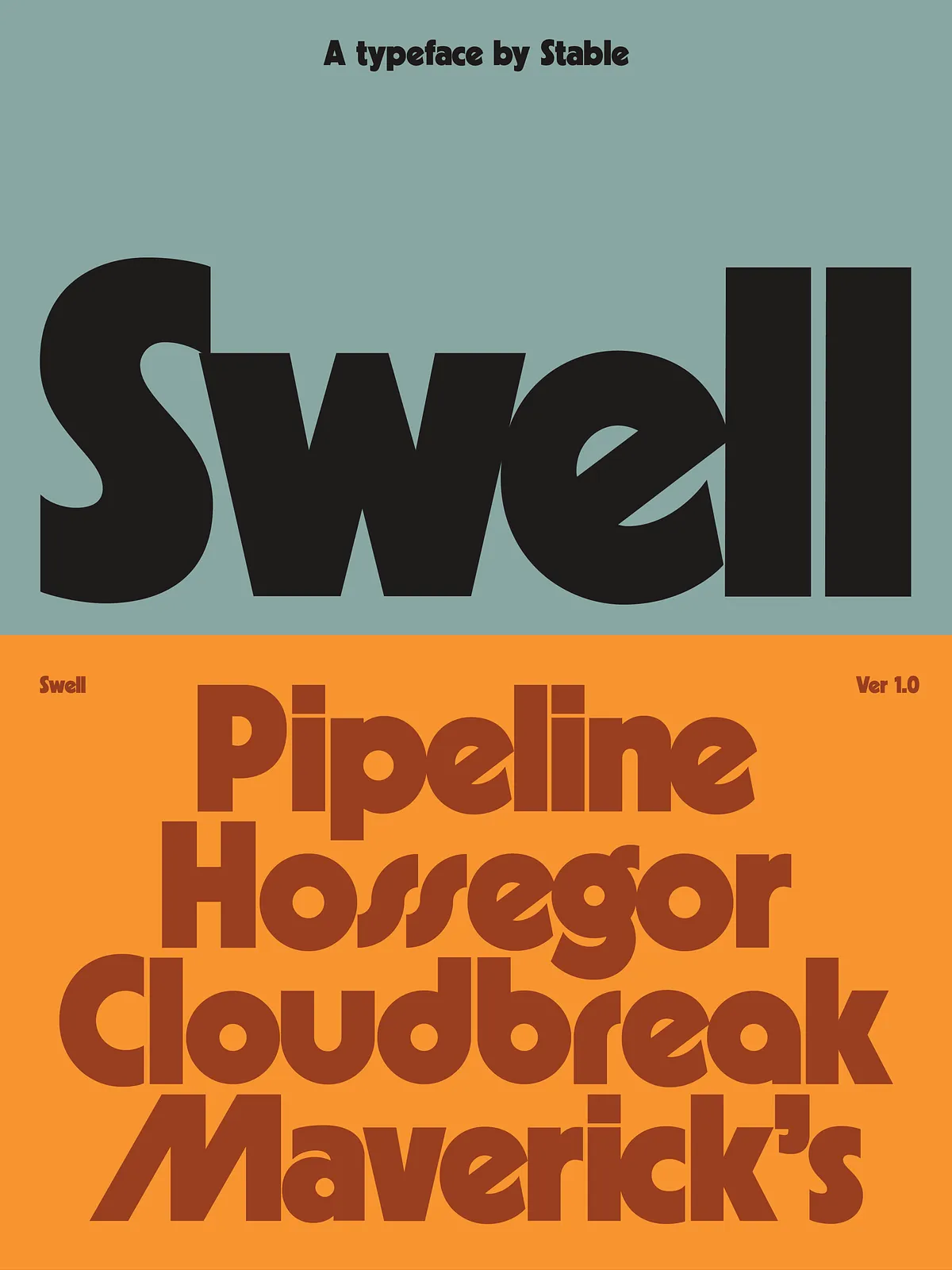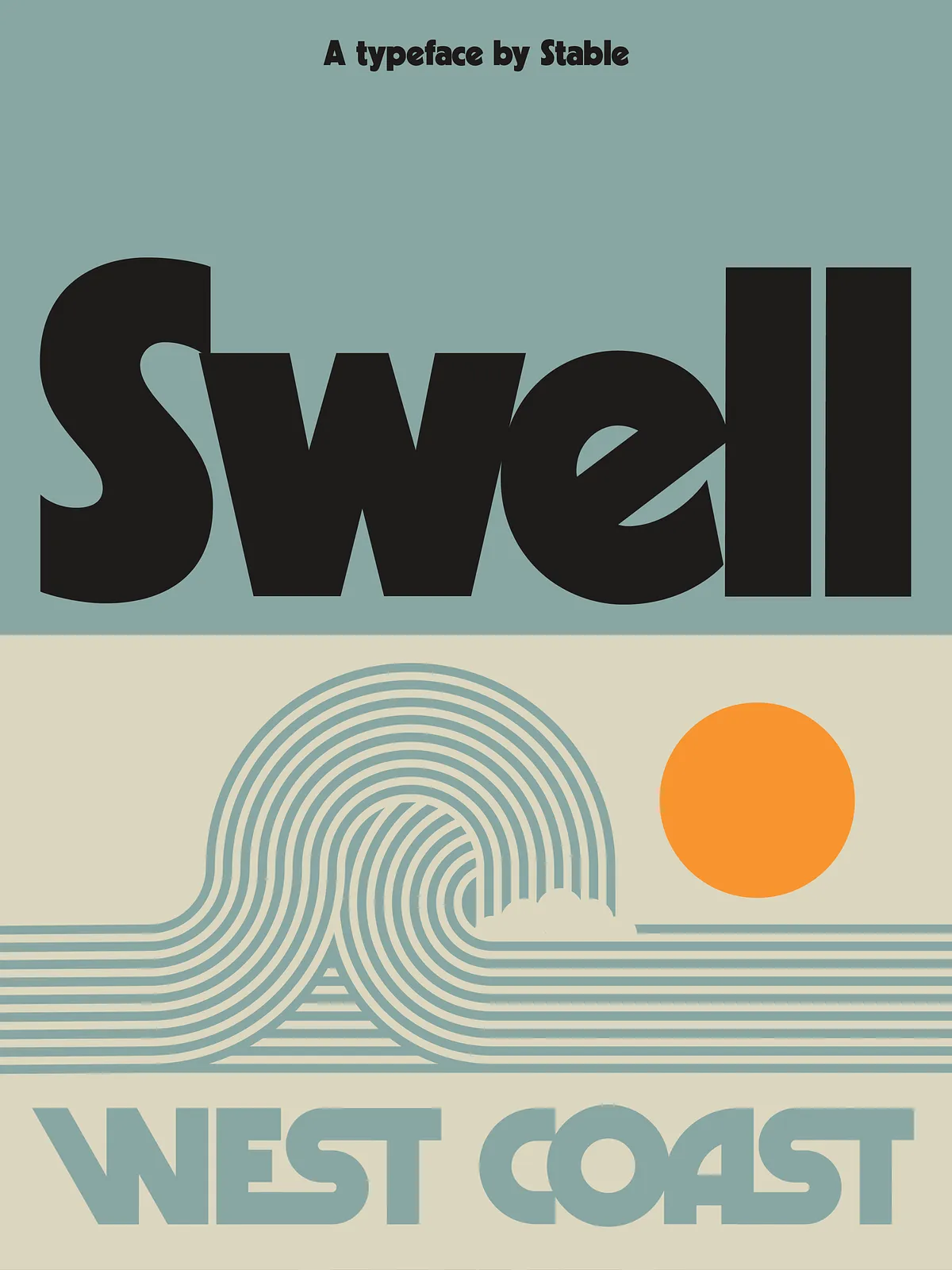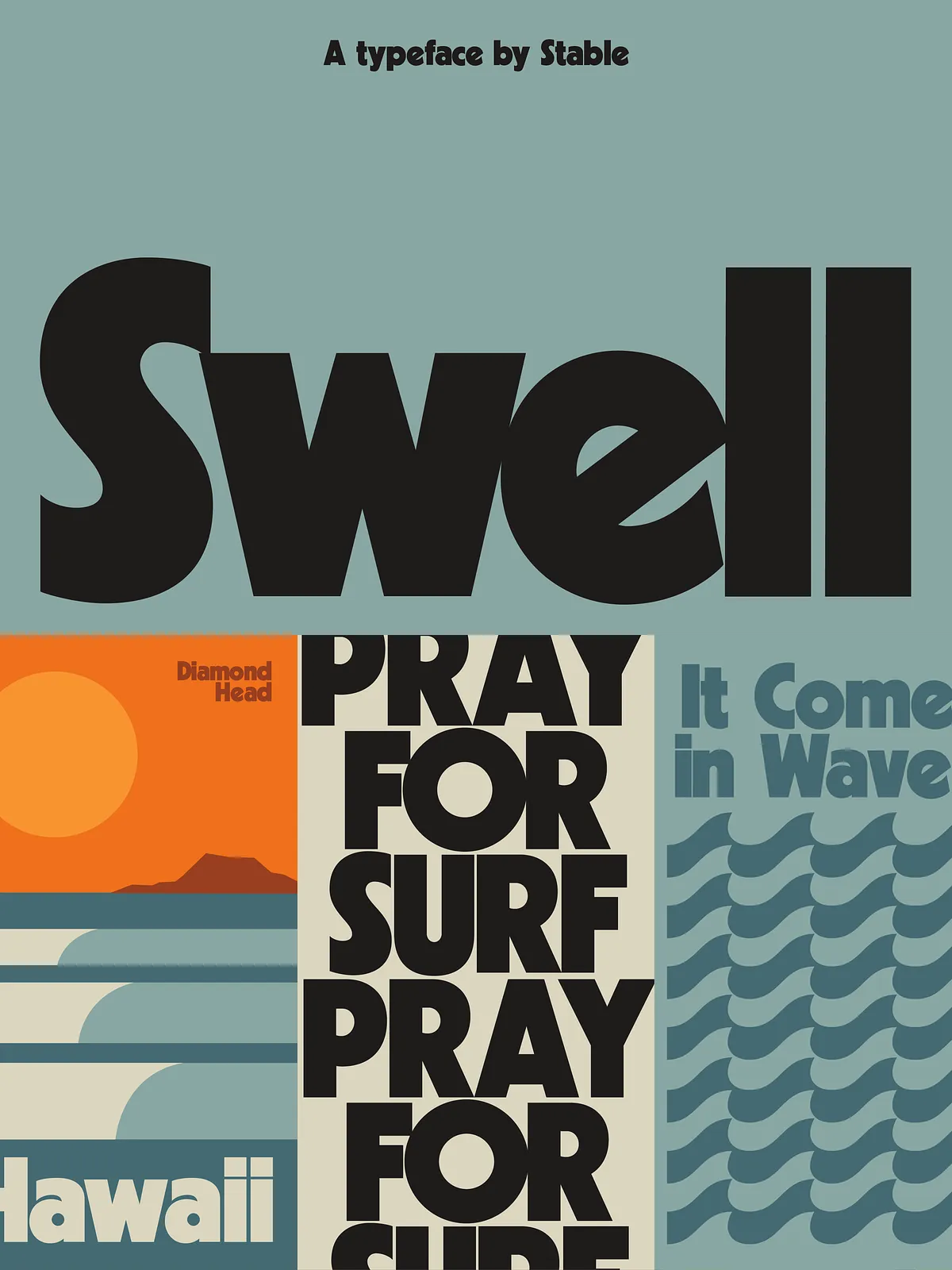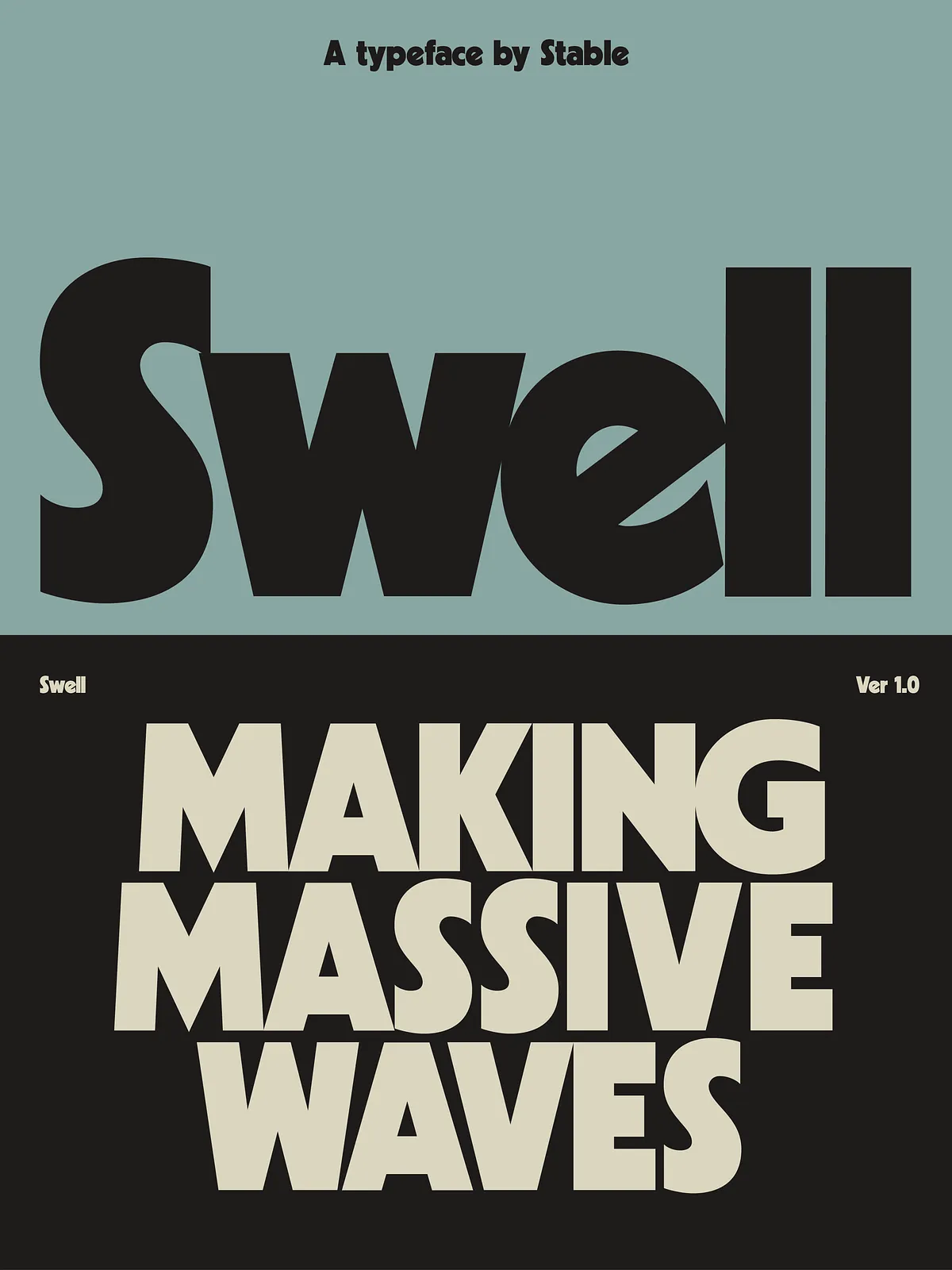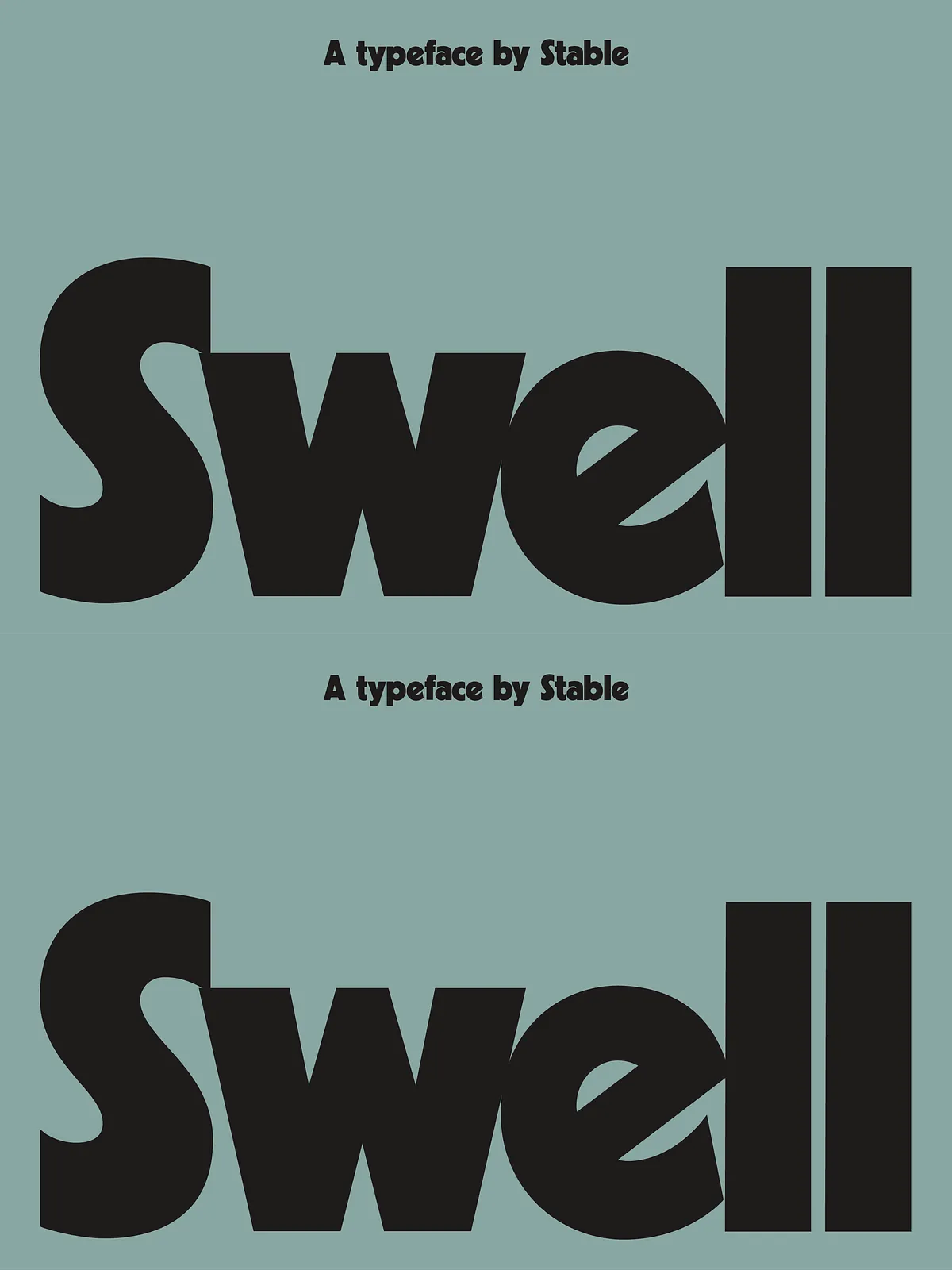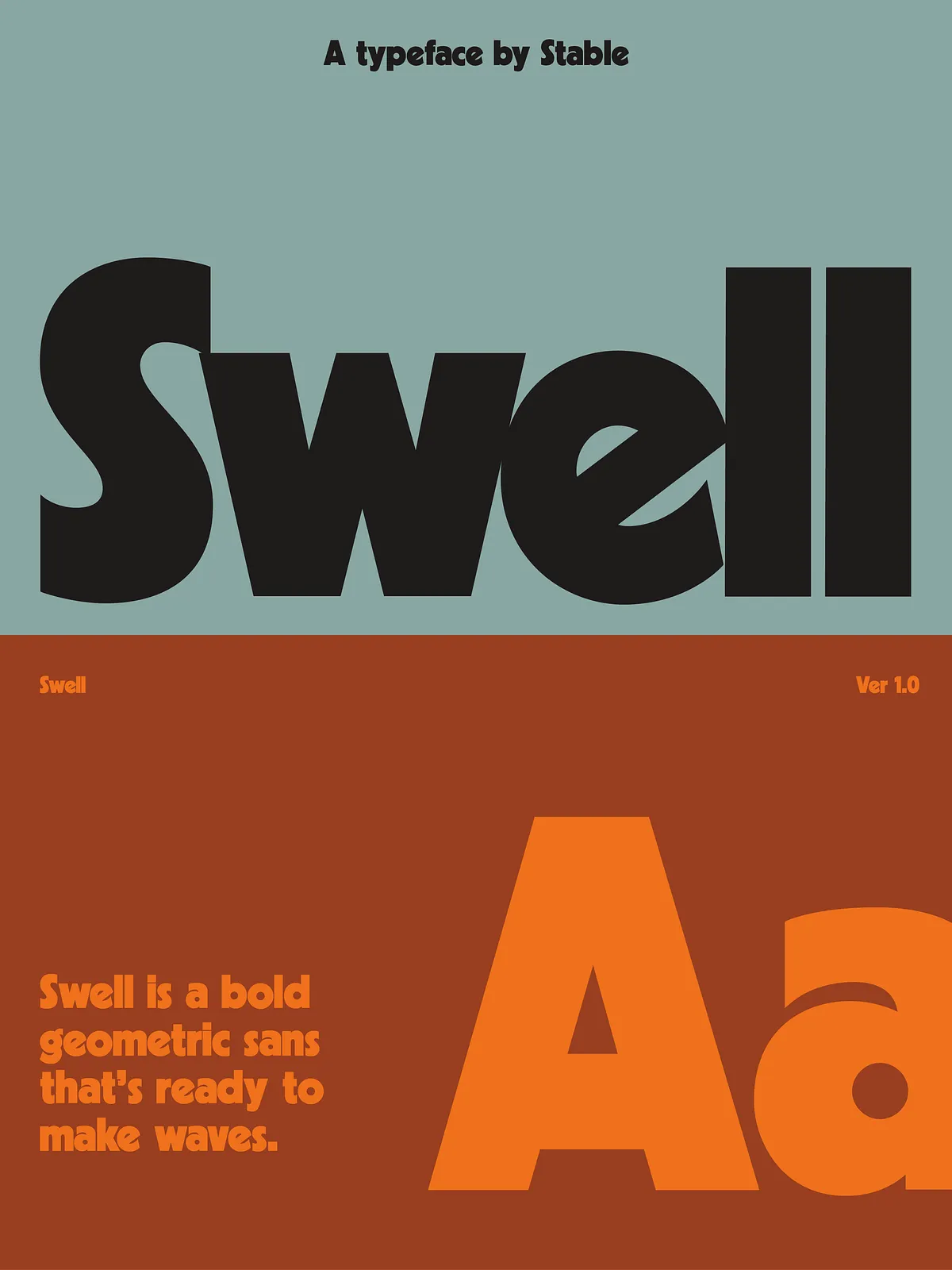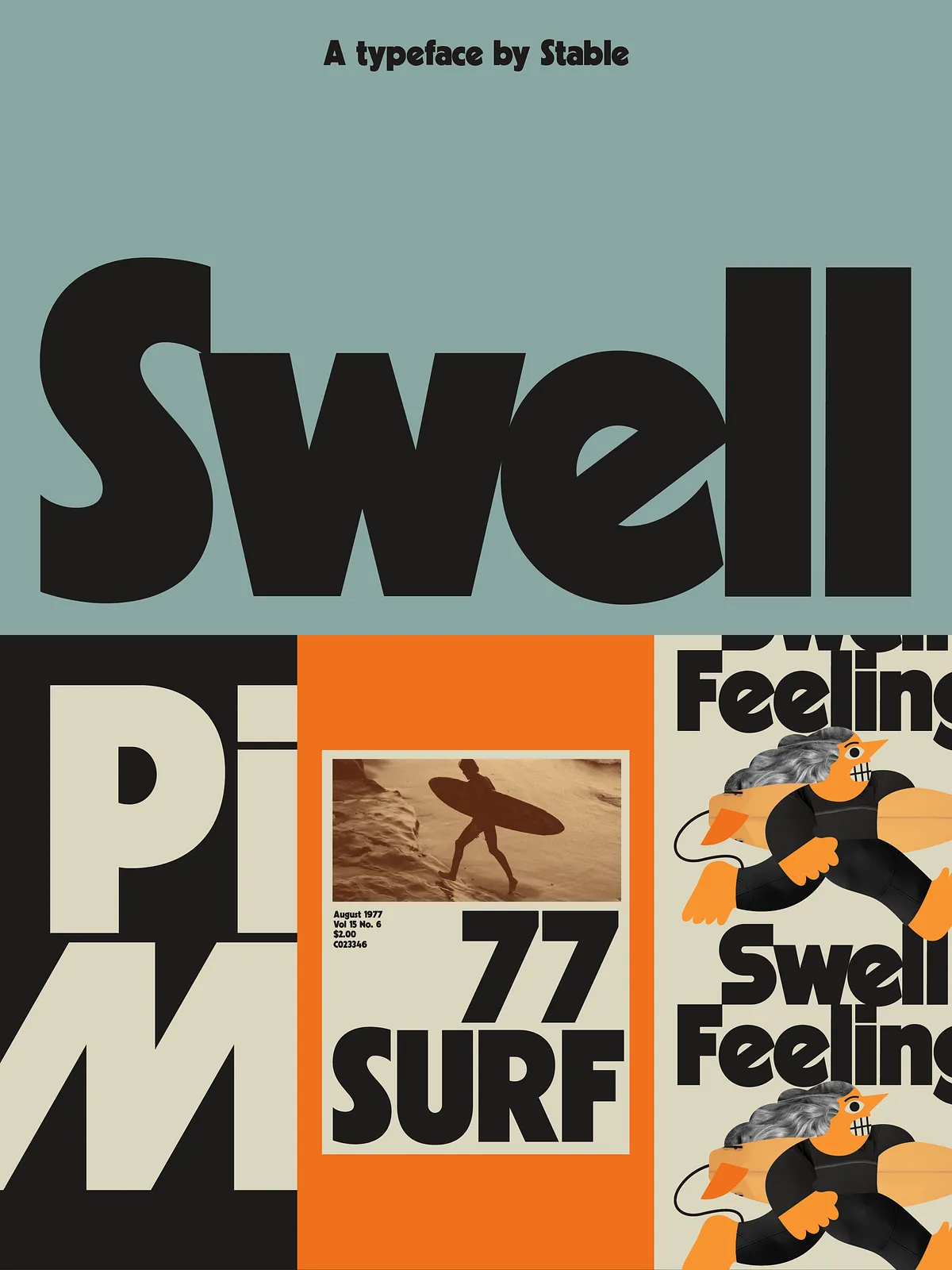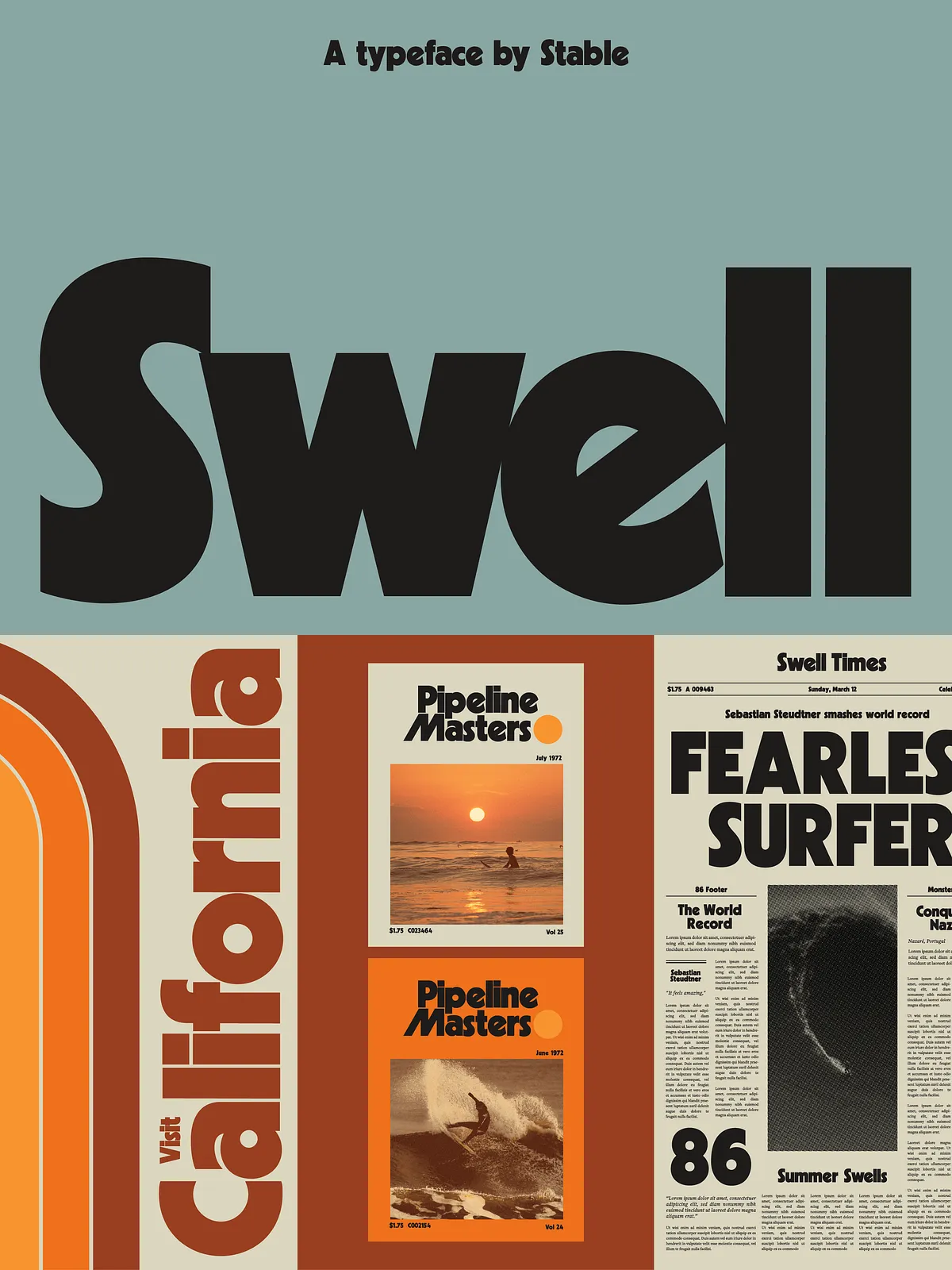
Swell – Display Font
Swell is a new take on the the timeless classic, Kabel Black. This bold, geometric sans includes uppercase, lowercase, numbers, punctuation, and over 50 alternative glyphs inspired by other classics like Avante Garde, Marvin, and Blippo. Surfs up!